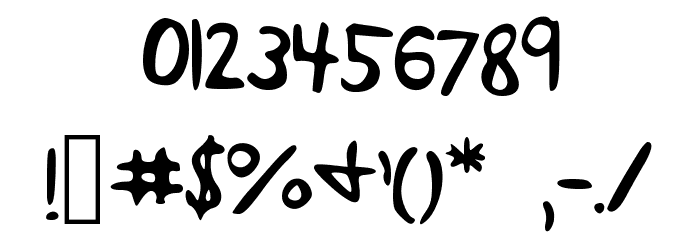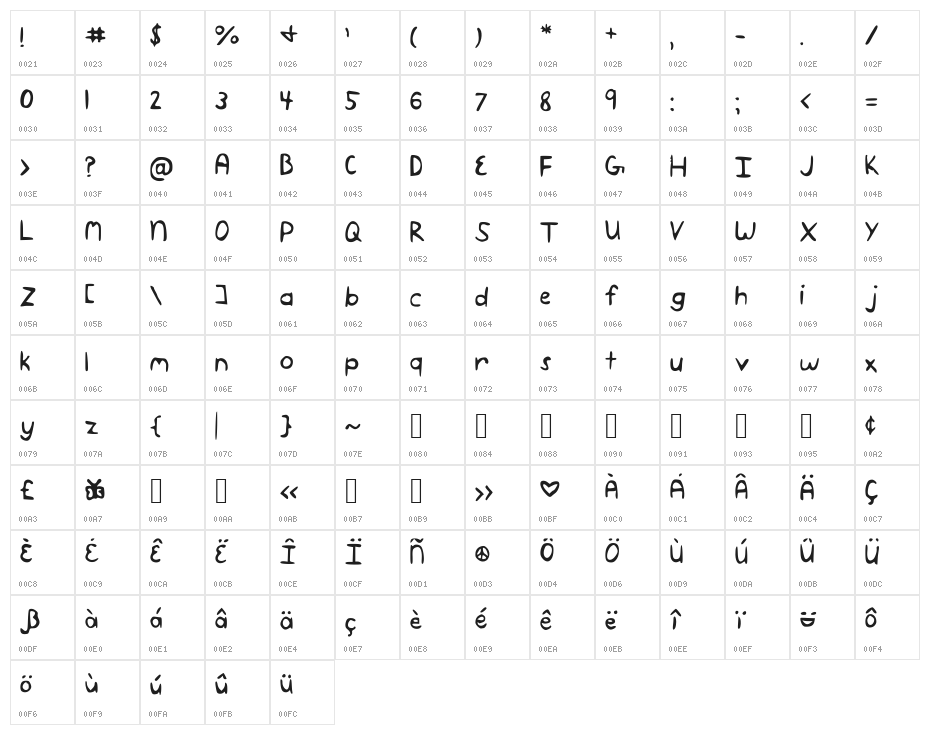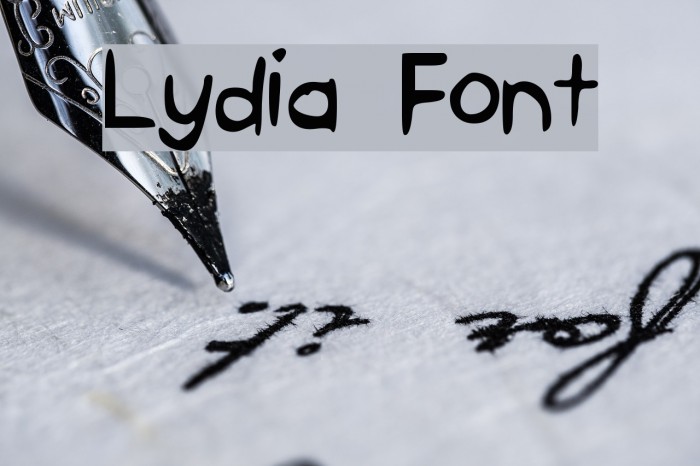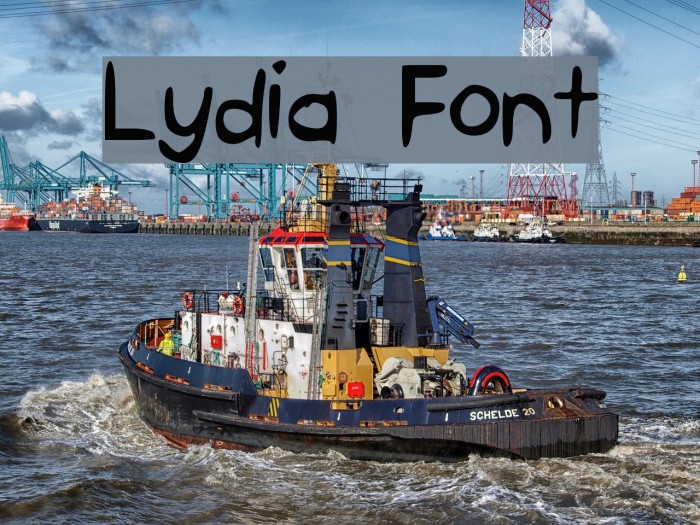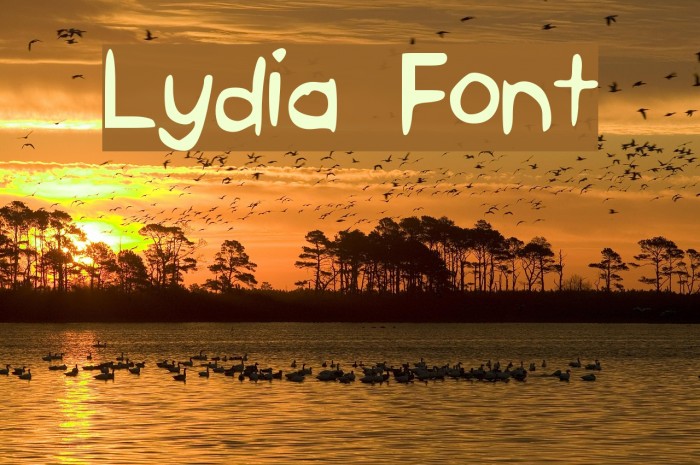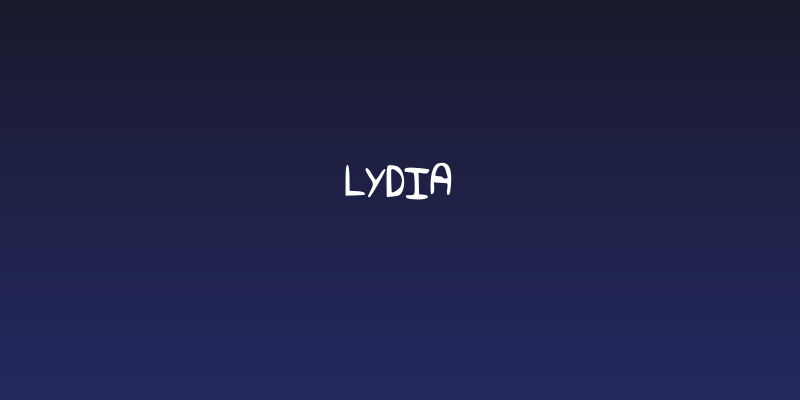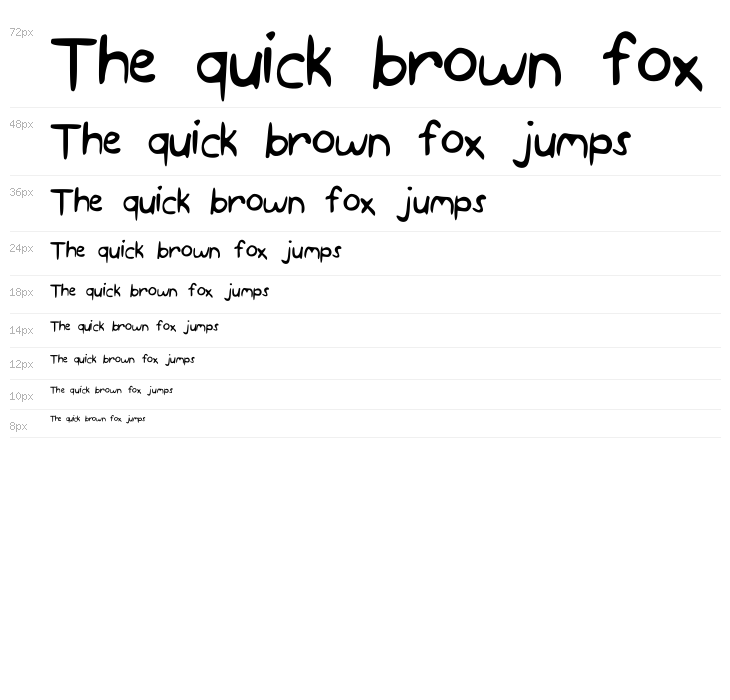
Lydia Font
Lydia Description
This playful and whimsical font features a handwritten style with a casual, informal appearance. The characters are slightly irregular, adding to its charm and personality. The strokes are smooth and rounded, giving it a friendly and approachable feel. The uppercase and lowercase letters maintain a consistent style, with a slight slant that enhances its dynamic look. The numbers and special characters are equally expressive, making this font versatile for various creative projects. Its unique style is perfect for designs that require a personal touch.
| Proposed Projects | Ideal for greeting cards, children's books, playful branding, and casual invitations. |